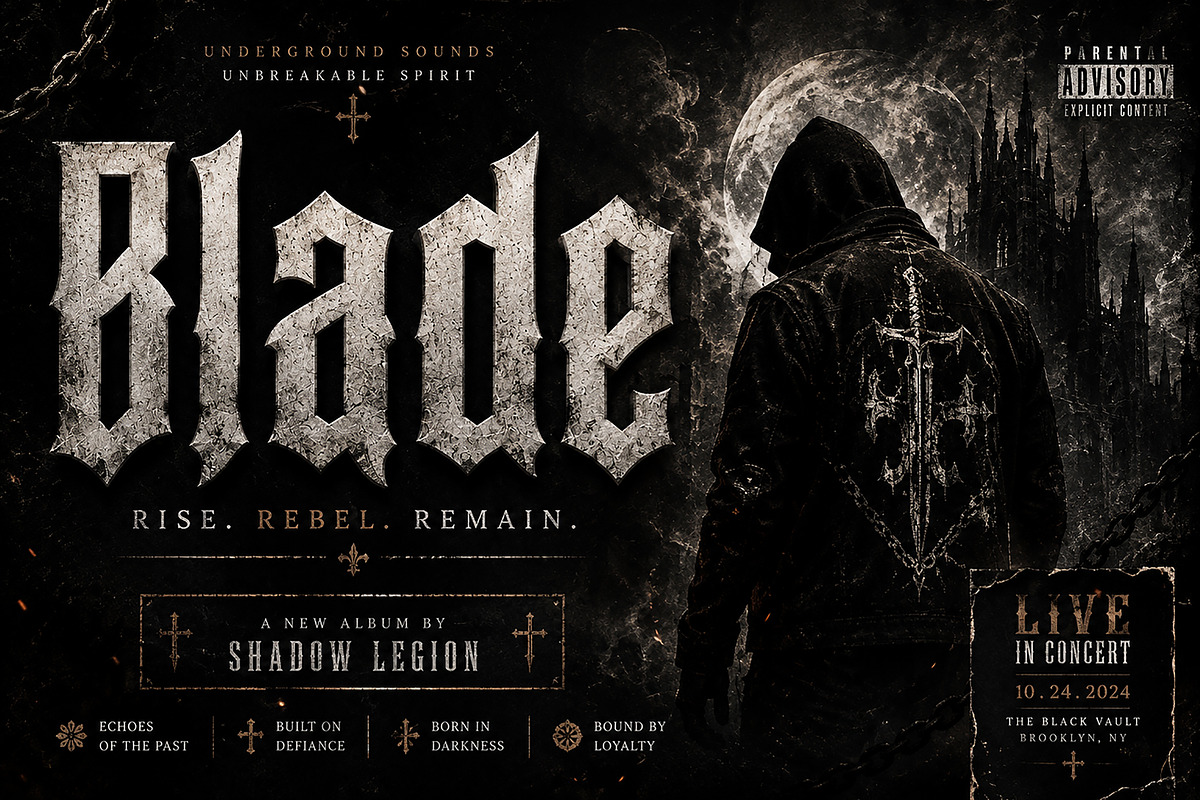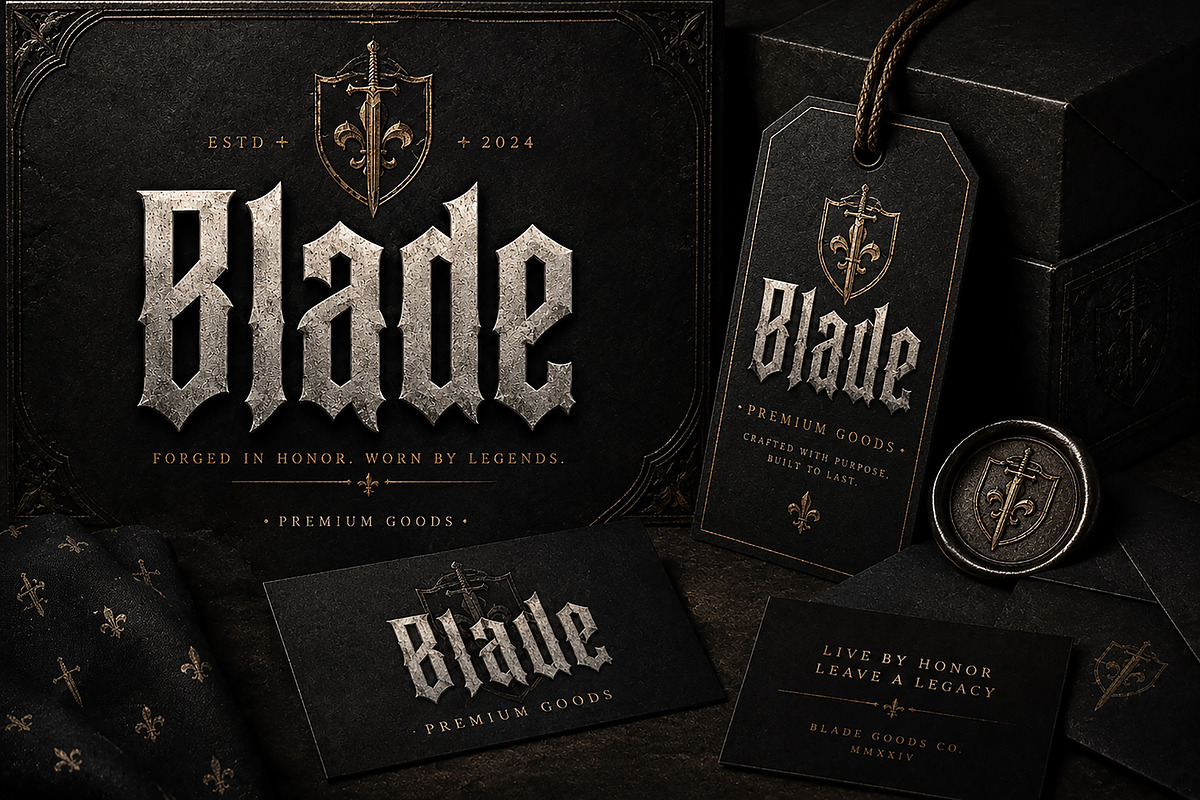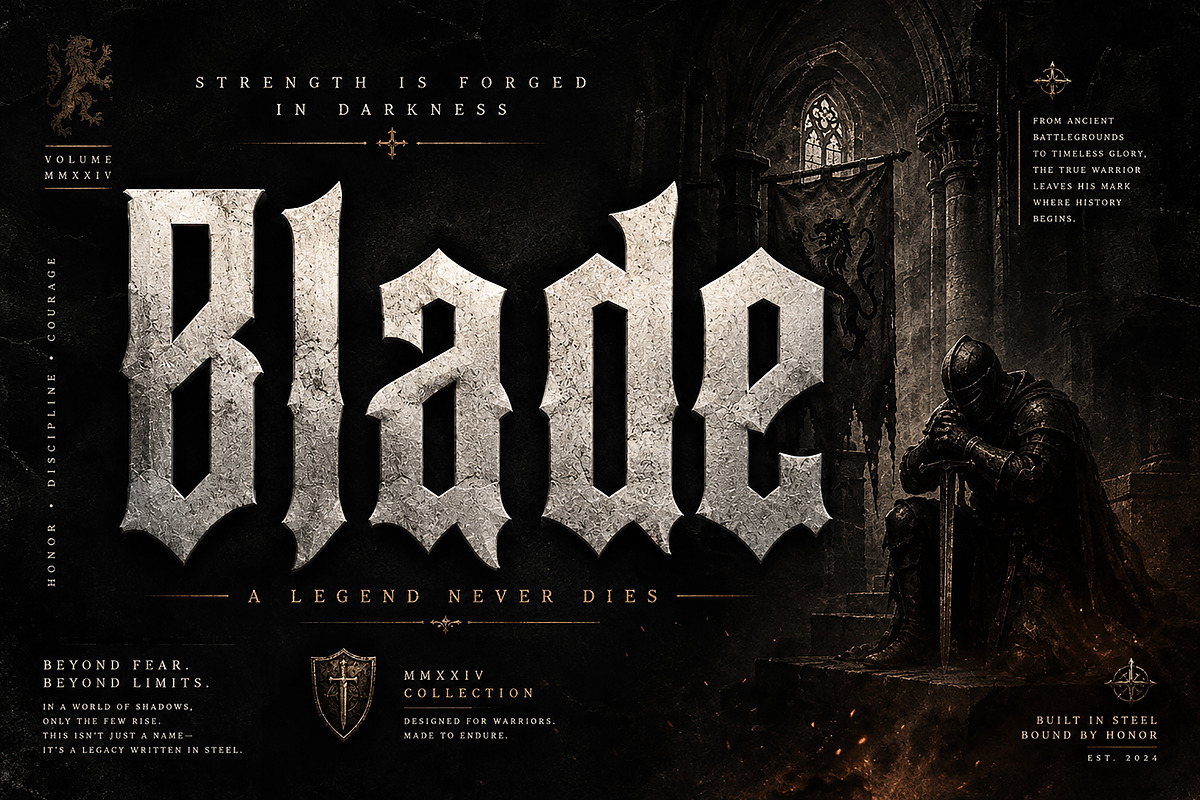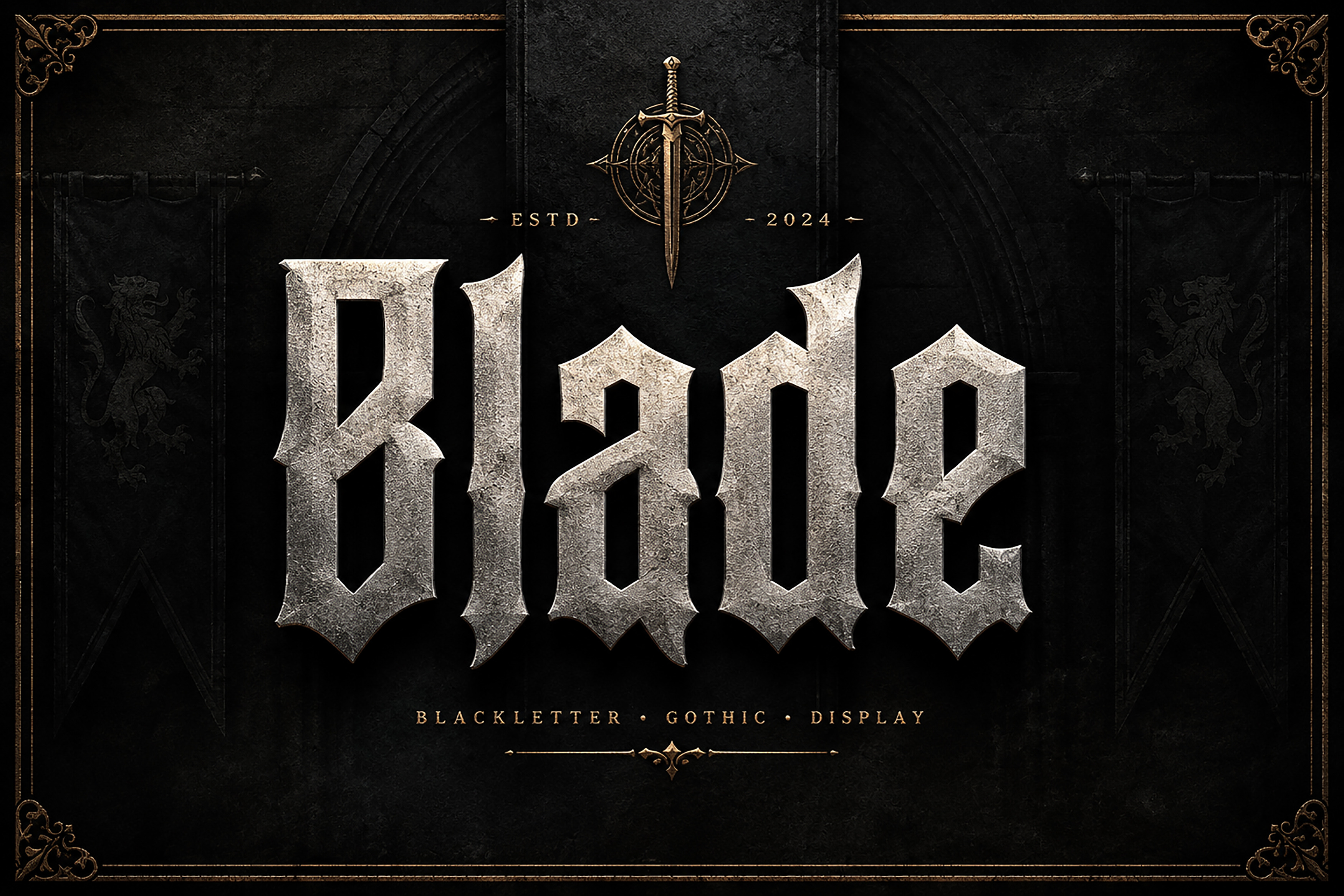
Blade — Blackletter Gothic Font
Blade is a bold and powerful Blackletter Gothic display font designed to bring a dark, medieval, rebellious, and commanding character to your designs. With its sharp angular forms and dramatic silhouette, Blade is perfect for projects that need a strong, distinctive, and unforgettable visual identity.
Its striking blackletter aesthetic works especially well for metal and rock artwork, album covers, concert posters, streetwear graphics, tattoo branding, barbershop branding, luxury labels, medieval-inspired designs, logos, packaging, apparel, posters, and promotional artwork.
Blade is designed primarily as a display typeface, making it ideal for large headlines, logos, titles, and impactful typography compositions.
Metal & Rock Album Covers
Gothic & Alternative Artwork
Concert & Event Posters
Streetwear & Apparel
Tattoo Studio Branding
Barbershop Branding
Medieval & Fantasy Designs
Luxury Gothic Branding
Logo & Badge Design
Posters & Promotional Graphics
Social Media Artwork
Editorial & Magazine Titles
Labels & Merchandise
Font Name: Blade
Style: Blackletter / Gothic / Medieval / Display